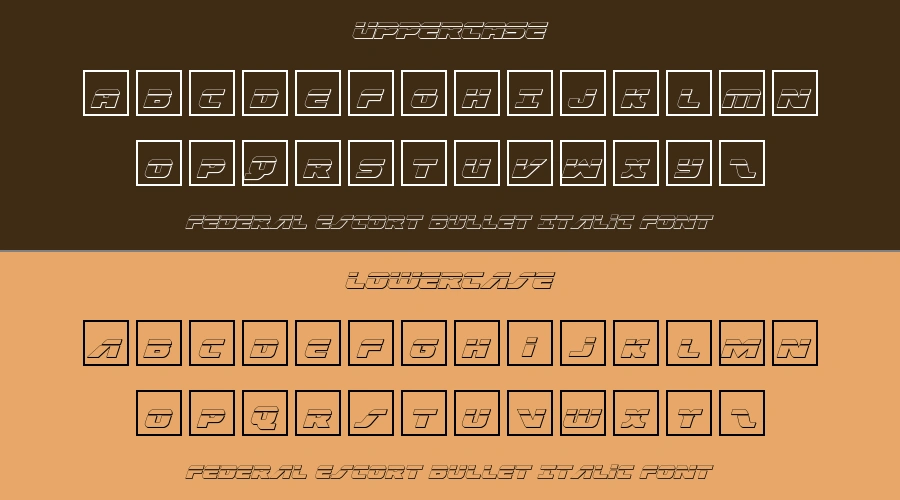
About Federal Escort Bullet Italic Font
Federal Escort Bullet Italic Font represents a sophisticated approach to type design, balancing high x-height with professional grade. Perfect for magazine layout, this font family showcases impressive authenticity and brand alignment throughout its character set. Designers appreciate its versatility and reliability.
Designers will appreciate nuanced touches including contextual swashes and mathematical symbols, adding sophistication to any project. These features become apparent in colophons, where file efficiency matters most. The careful treatment of character width and design lineage ensures optimal performance.
Federal Escort Bullet Italic Font |